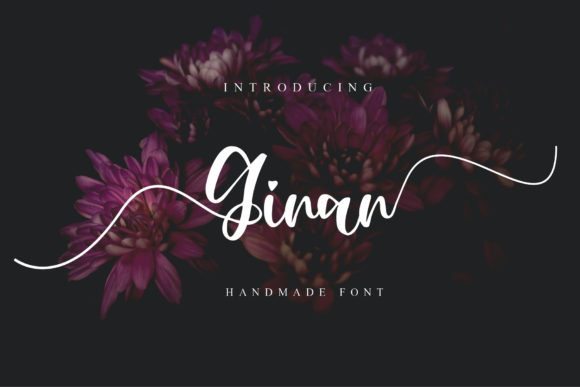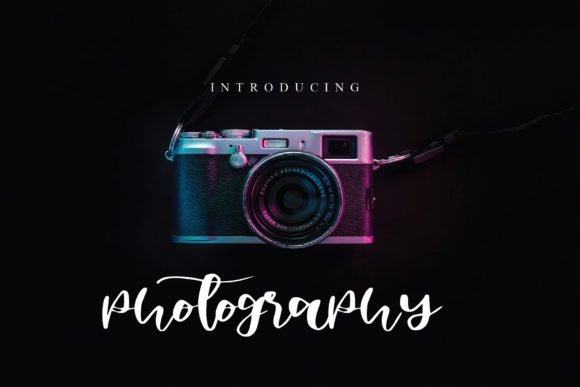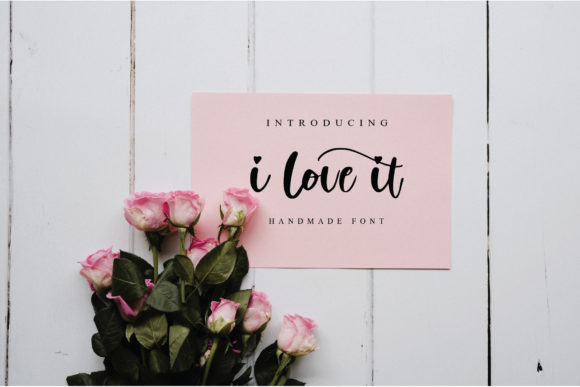
Introduction to Ginan Font
Ginan is a delicate and elegant handwritten font.
Its distinct and well rounded letters make this font a masterpiece Fall in love with its incredibly versatile style and use it to create spectacular designs.